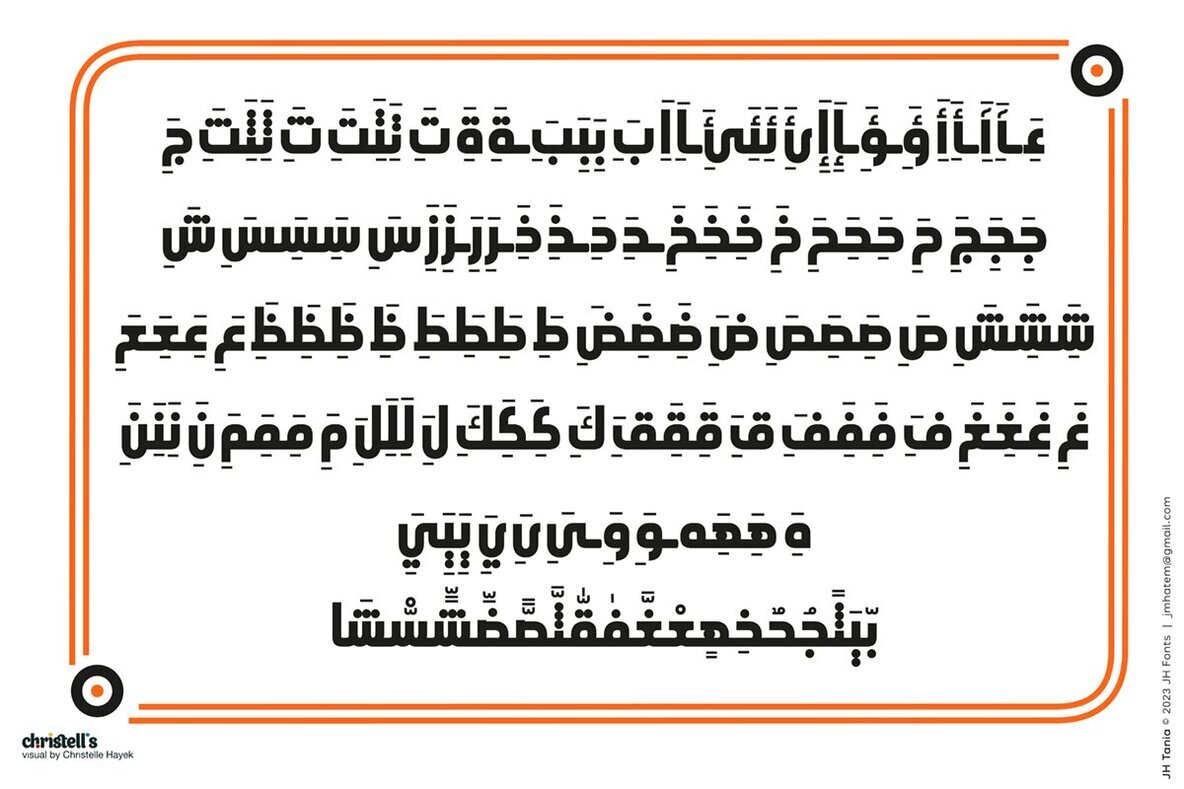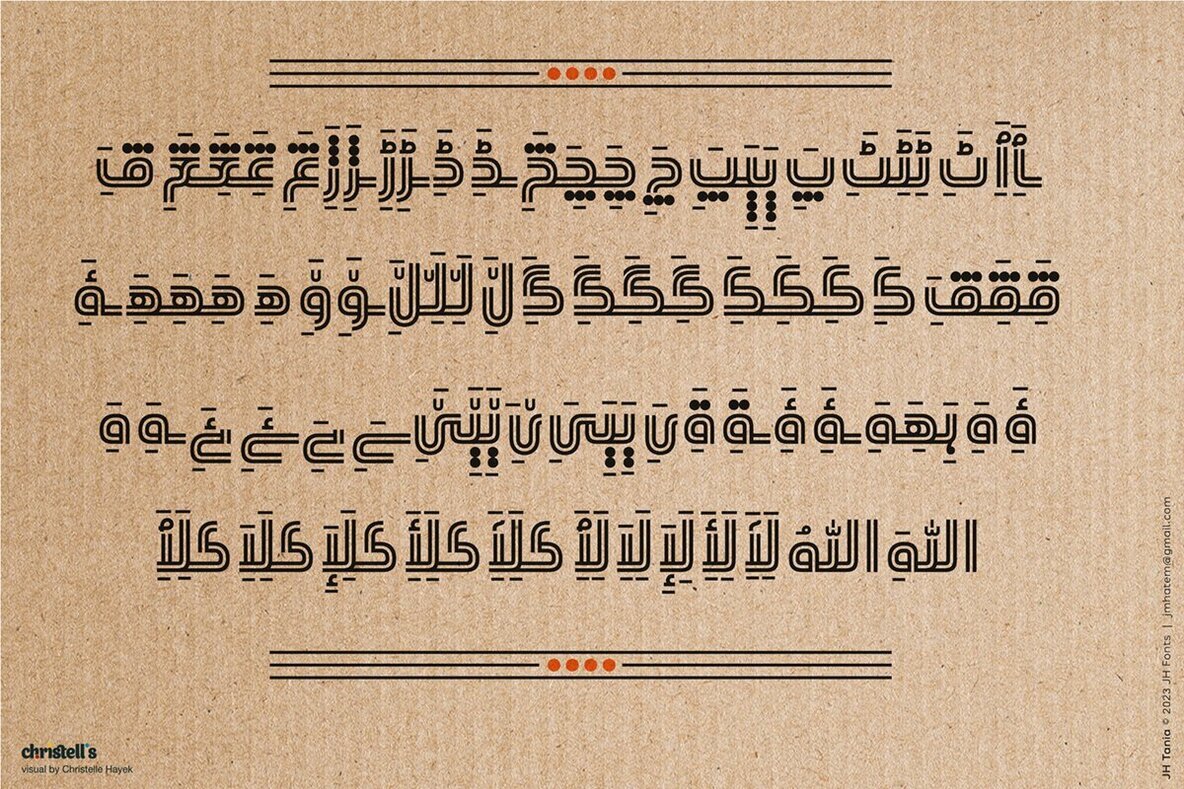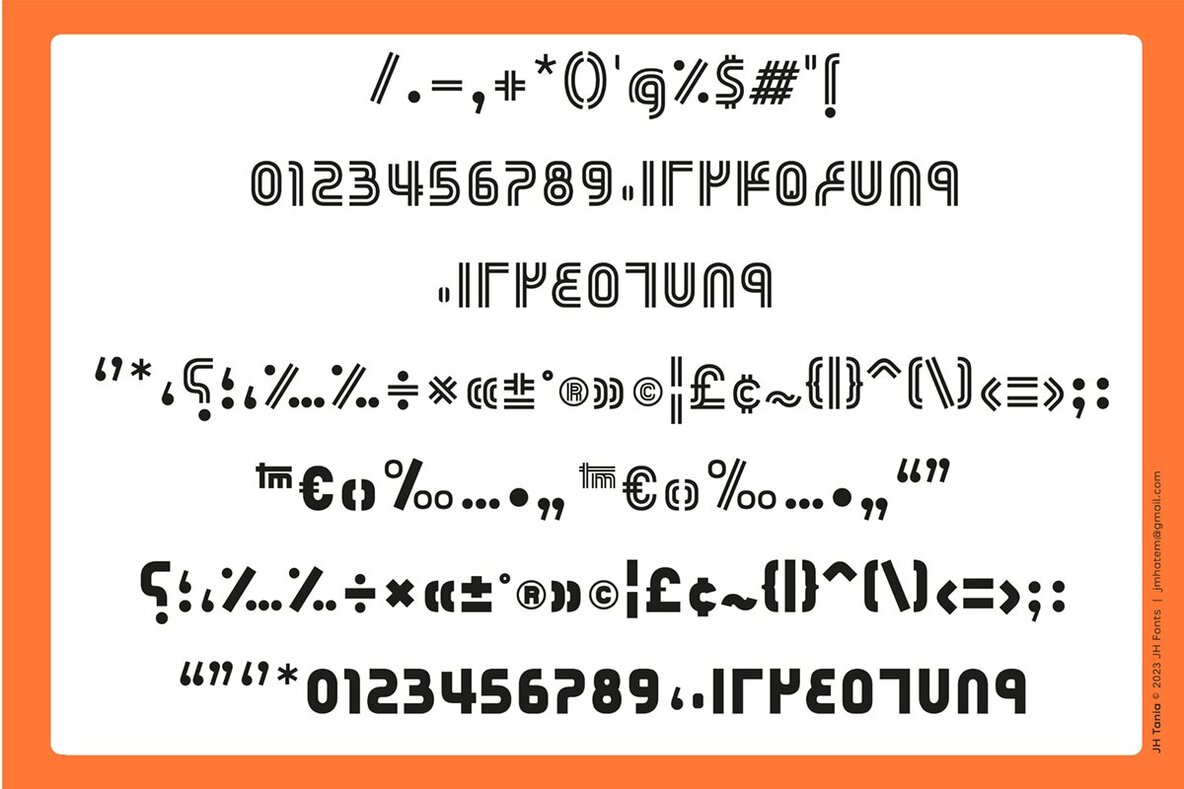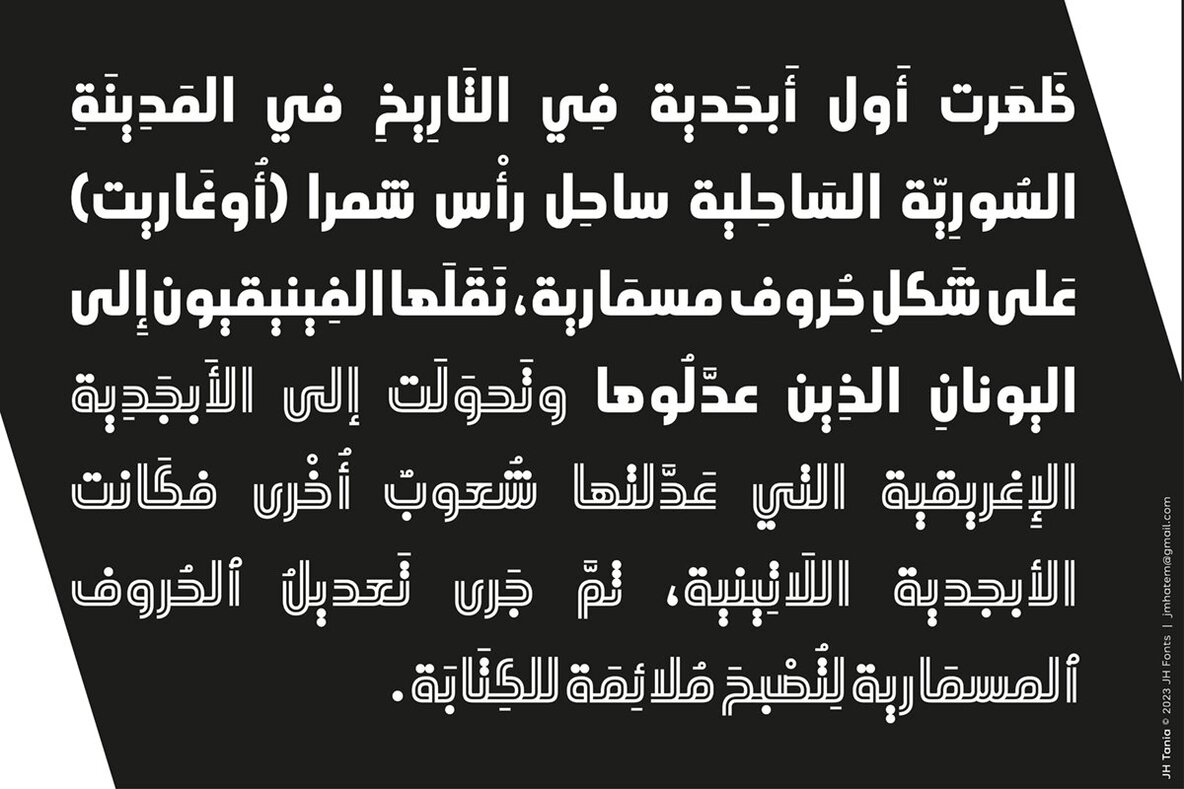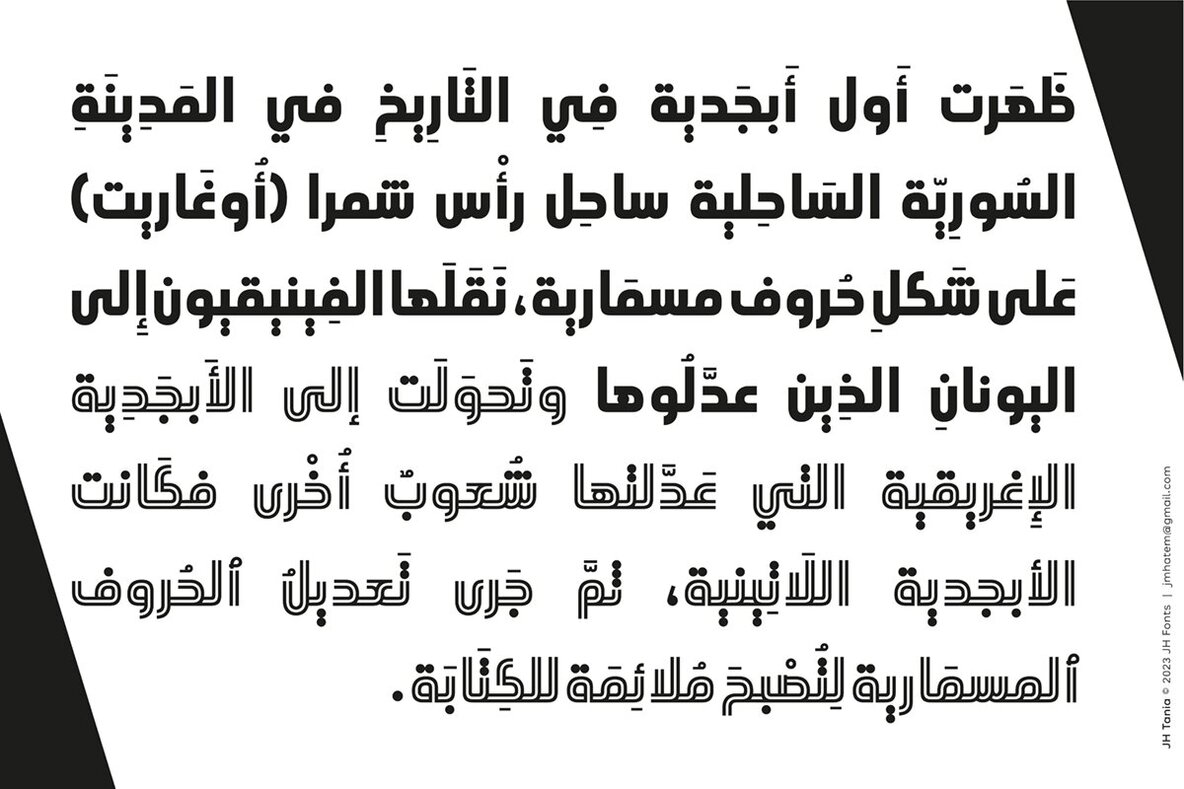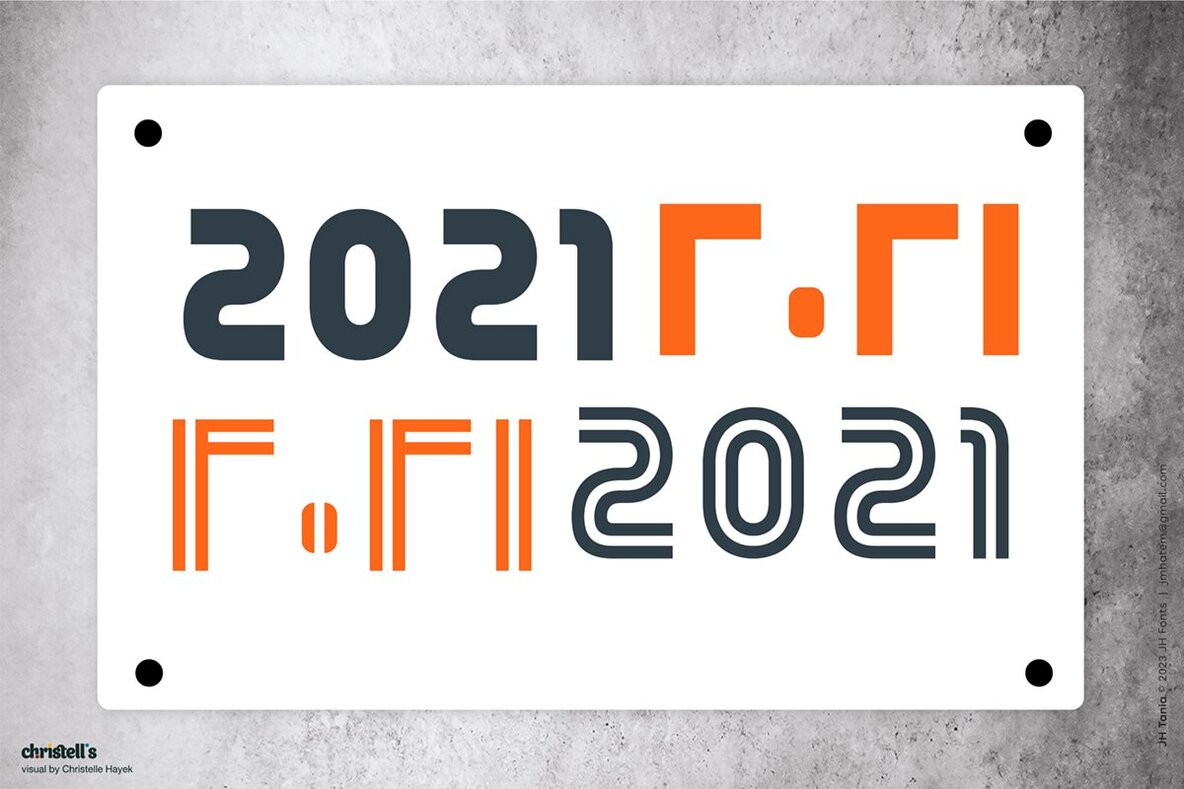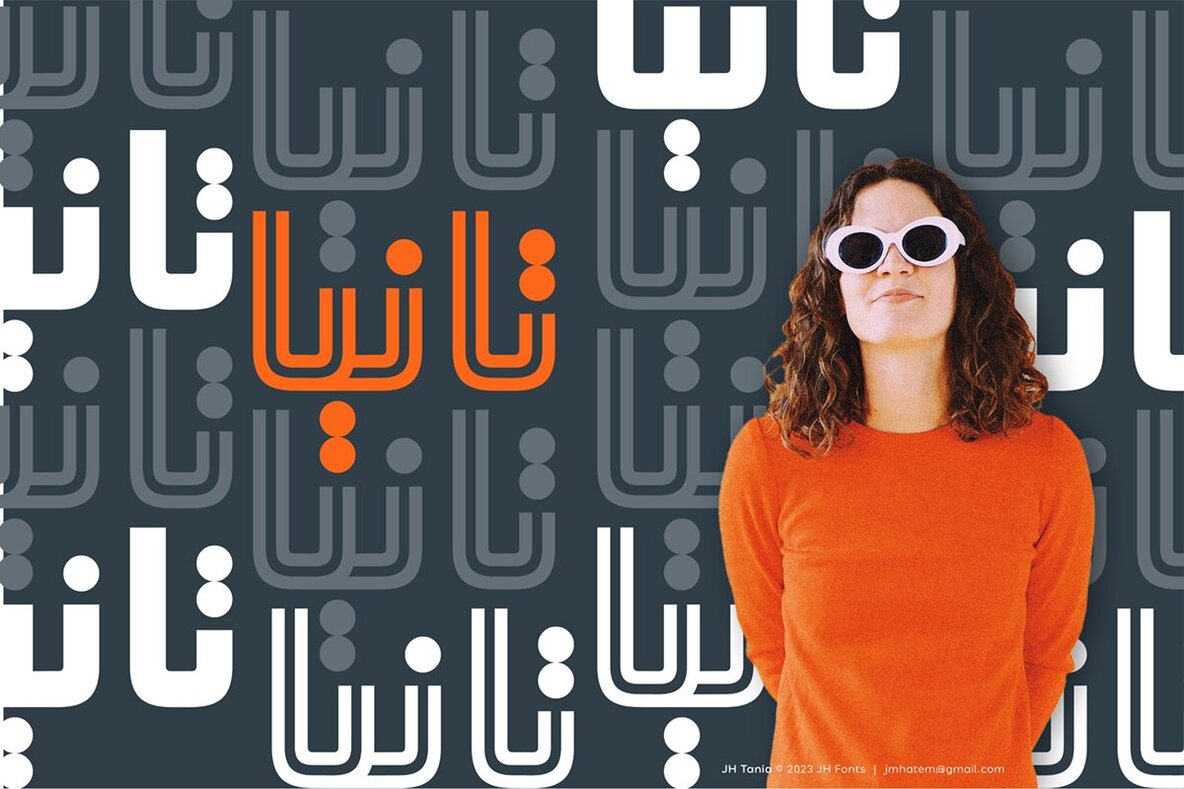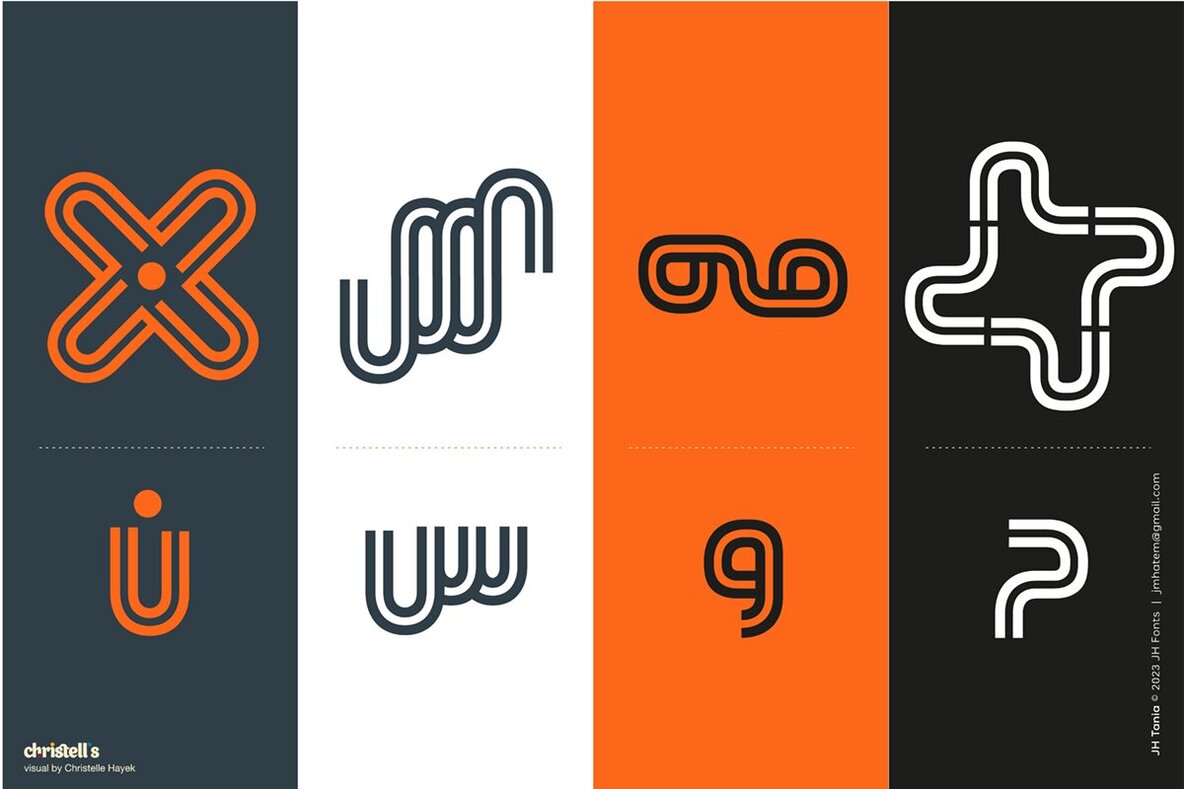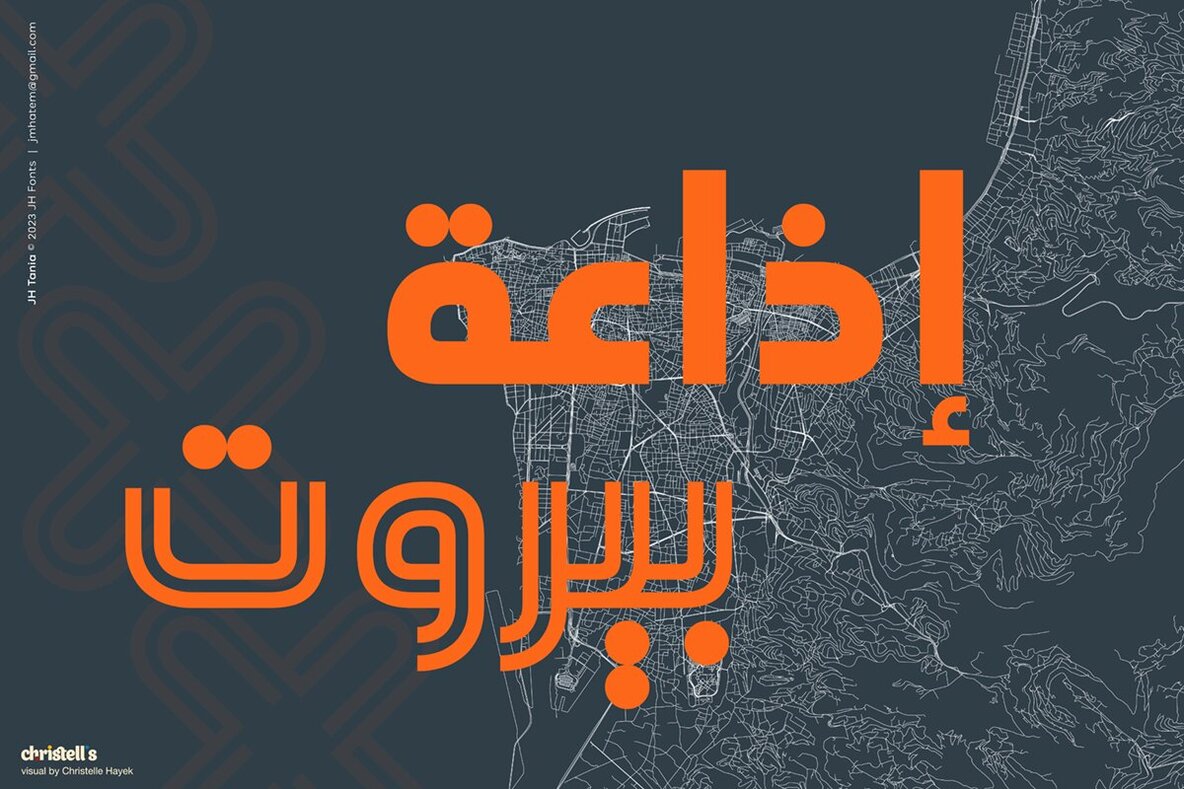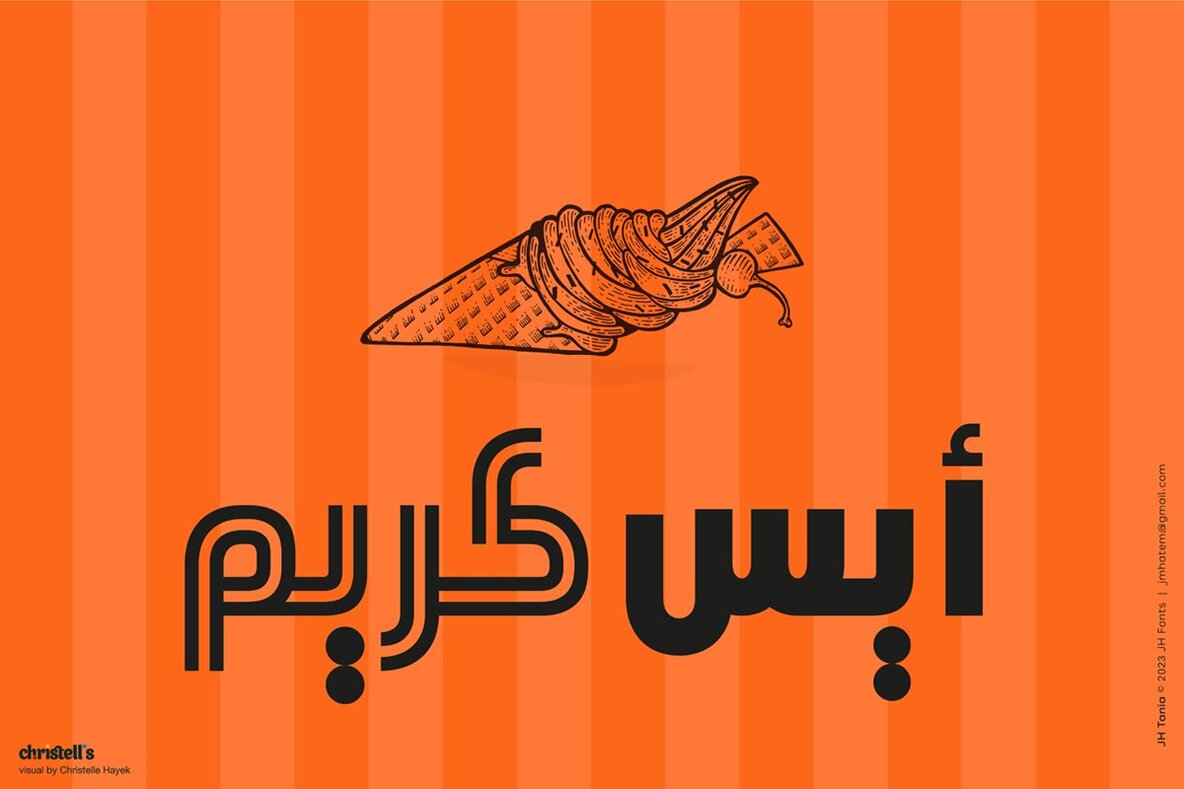
JH Tania Font
JH Tania 2x is geometric typeface, including a double stripe & a black weights. It has a modern design ideal for logos / branding and titles..